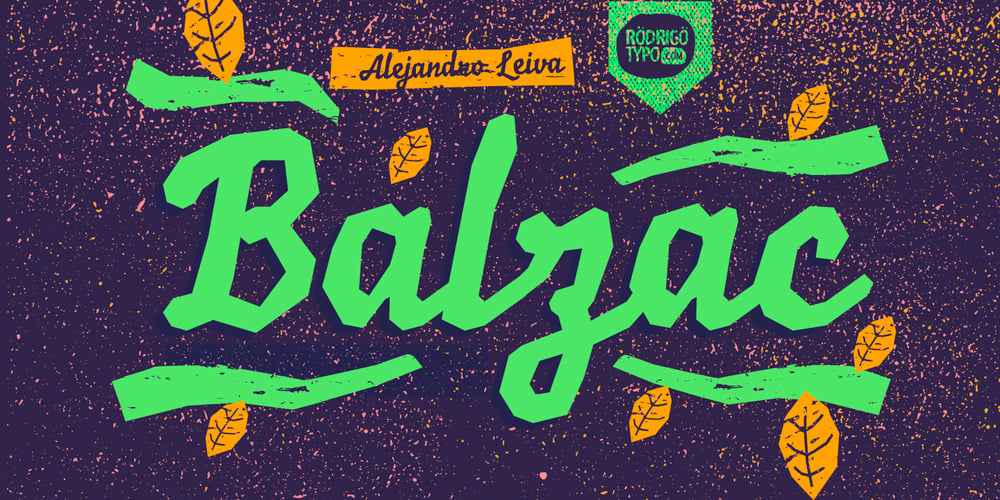
Balzac Font Family was designed by Alejandro Leiva and published by RodrigoTypo. Balzac contains 2 styles and family package options. Balzac is one Script typeface, heavy, rough with alternate set of numbers and accompanied a set of ornaments, designed by Alejandro Leiva.